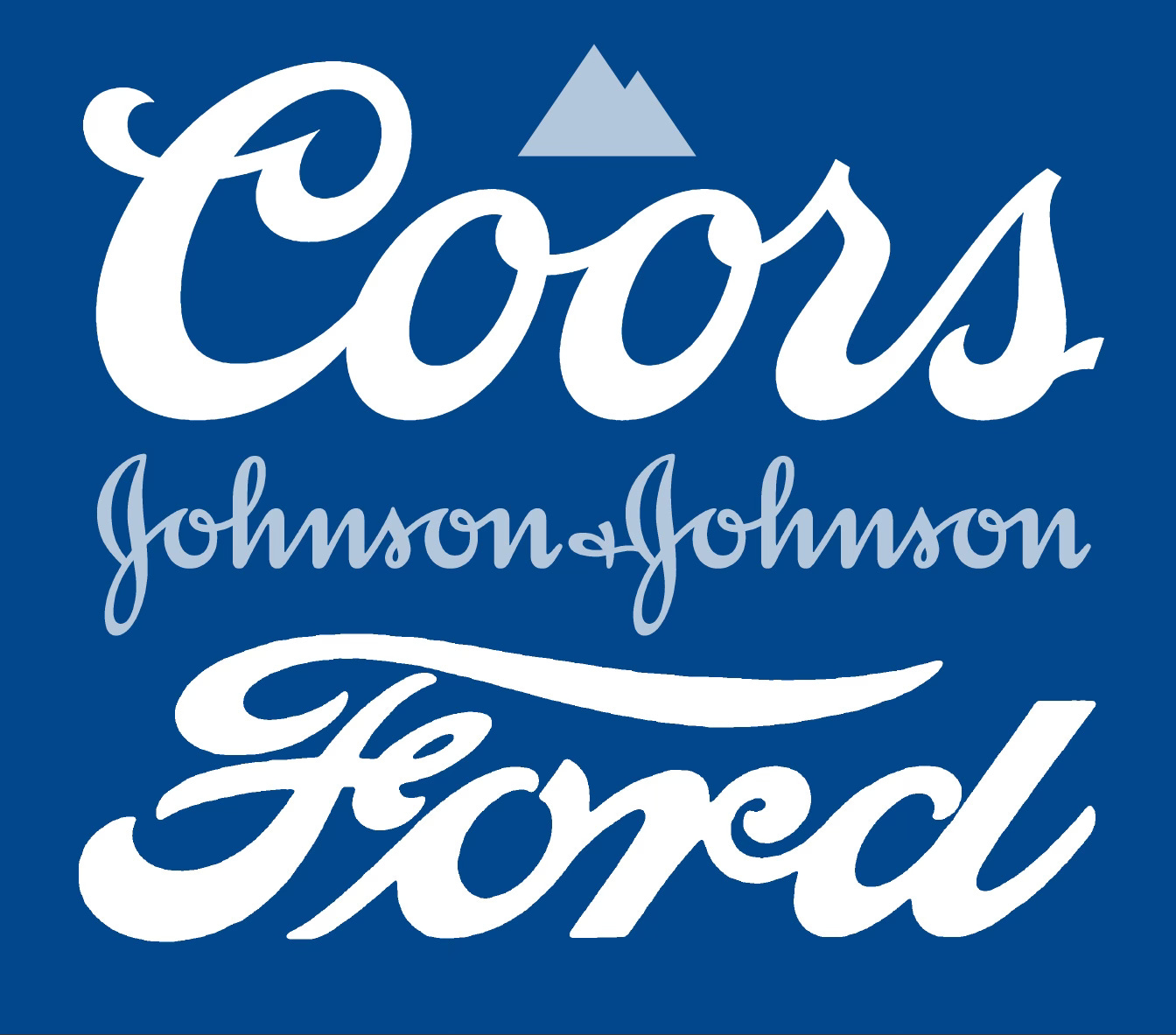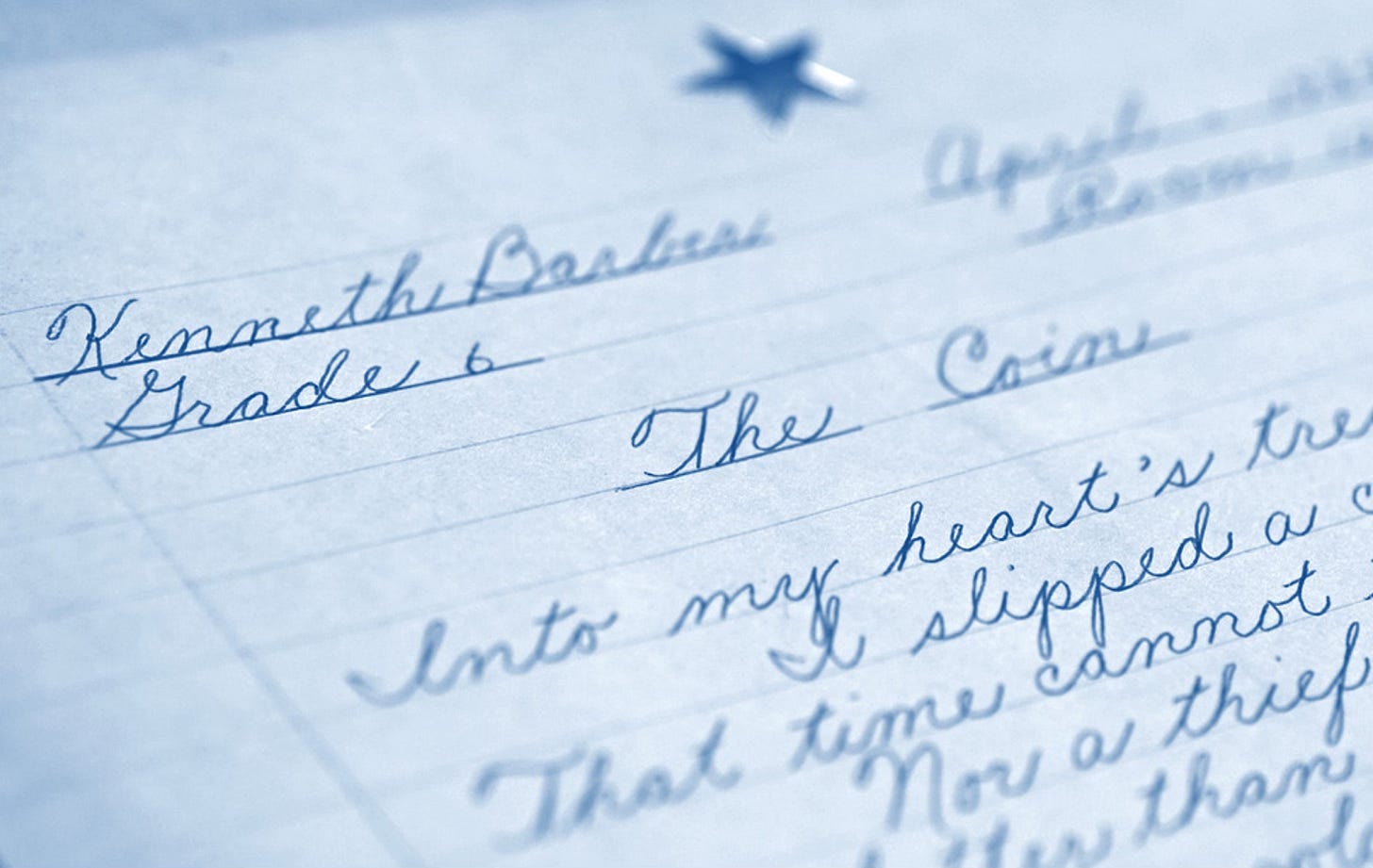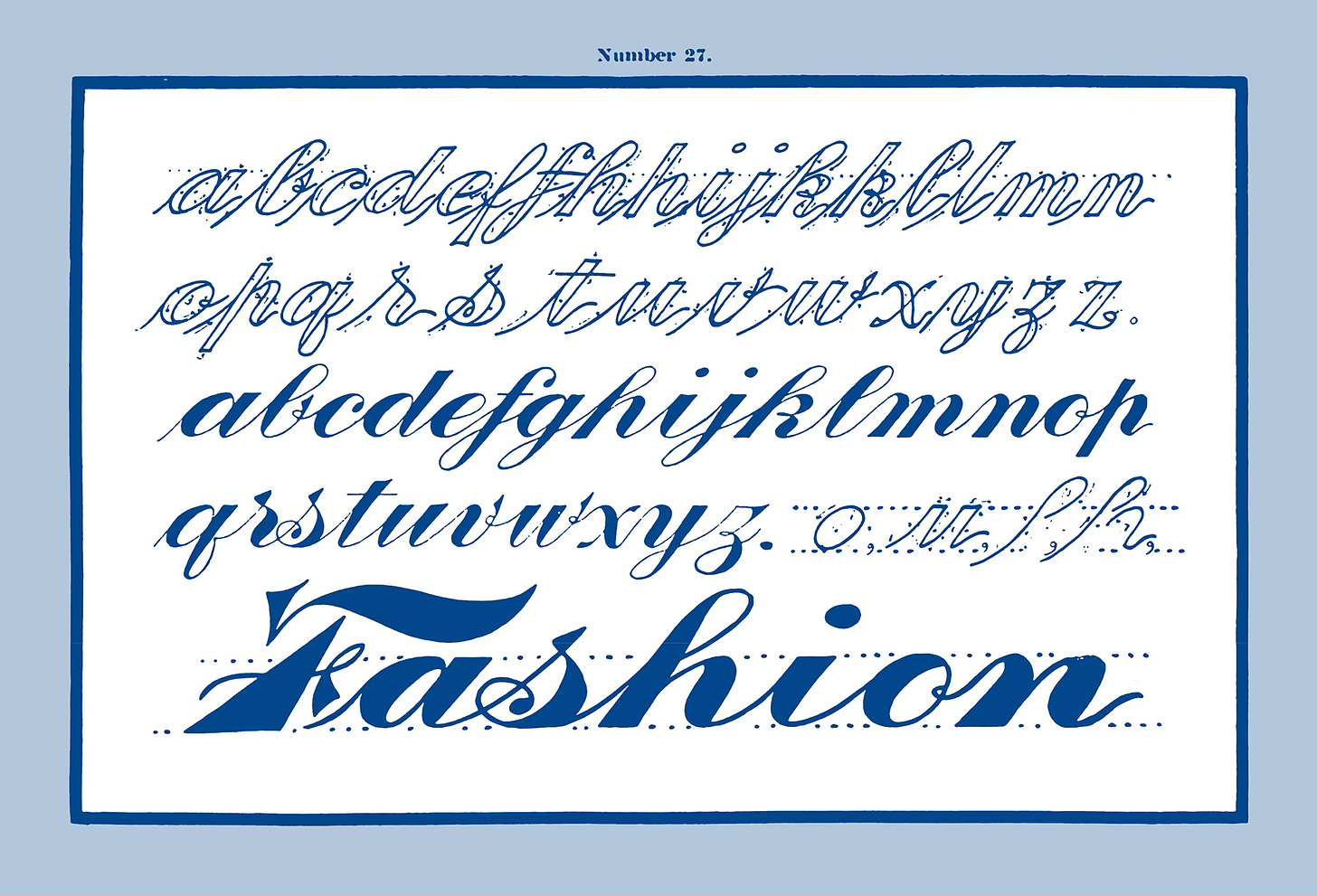
Is Cursive Dead?
A look at the enduring relevance of script letterforms
Despite having years of Catholic school penmanship classes under my belt, I actually write in all capital block letters. And with fewer schools requiring cursive instruction, it’s easy to imagine the style is fading away. Yet surprisingly, script remains one of the most popular and recognizable genres in hand-lettering today.
Cursive handwriting by yours truly using the Palmer Method, circa 1983
Everyday cursive handwriting traces back to English Roundhand, an elegant script from the late 1600s. A few centuries later, a simplified version became a fixture in American business correspondence, bookkeeping, and classroom instruction. Borrowing the warmth and familiarity of cursive, advertisers created a unique heavyweight variation to bring attention to logos, packaging, and signage.
Hand-drawn cursive from W. A. Thompson’s Modern Show Card Lettering, 1906
Today, bold script lettering is everywhere. Contemporary brands rely on it to project warmth and personality, which can be challenging to capture with other genres. In fact, heavy commercial script continues to be a go-to style when artists want expressive yet approachable lettering.
Modern brands continue to lean on friendly and familiar classic script styles